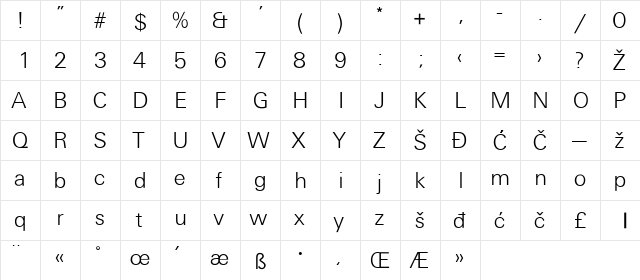
Universans450_PP Regular
Design Context for Universans450_PP Typeface
Universans450_PP offers clean, dependable letterforms without strong stylistic allegiance, making it a practical choice for designers who need flexibility.